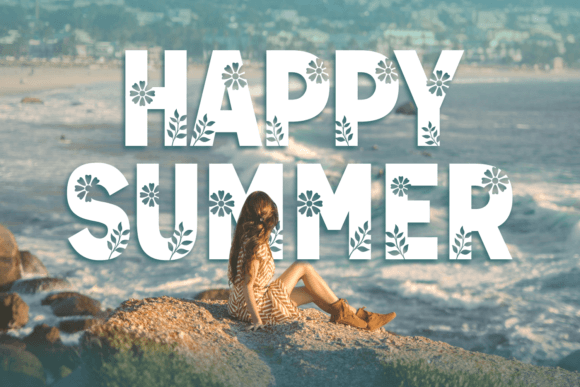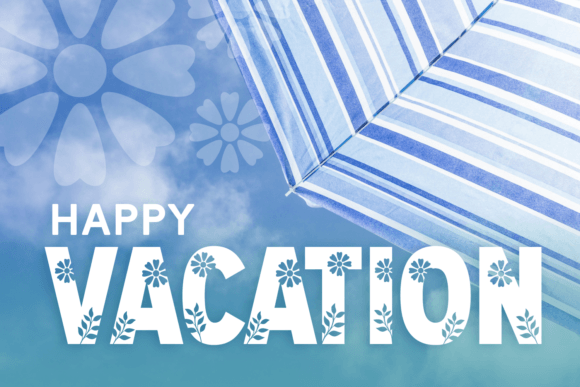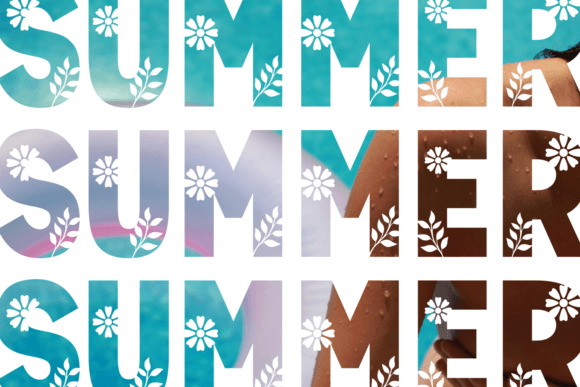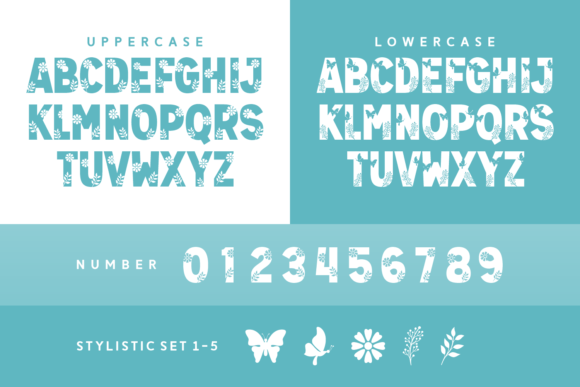
Introduction to Gooday Summer Font
As a designer, have you ever found yourself lost in a sea of creative possibilities, searching for that perfect font to bring your project to life? It’s a feeling we’ve all experienced at some point, and it’s exactly what makes the discovery of a stunning new font so thrilling. For me, that moment came when I stumbled upon the enchanting Gooday Summer Font.
This beautiful decorative font is more than just a pretty face – it’s a game-changer for designers looking to add a touch of elegance and whimsy to their work. With its intricate floral and butterfly motifs, Gooday Summer Font is perfect for creating captivating designs that exude a sense of beauty and romance. Whether you’re working on a wedding invitation, a garden party poster, or a feminine branding project, this high-quality font is sure to elevate your design to the next level.
Key Features of Gooday Summer Font
- High-quality design resource ideal for creative projects, featuring a unique and vibrant style.
- Features a bold and playful font size, ranging from 12 to 72 points, suitable for various design applications.
- Designed with a high resolution of 300 DPI, ensuring crisp and clear display on various screens and print materials.
- Perfect for summer-themed projects, parties, and events, adding a fun and lively touch to any design.
Honest Review: Gooday Summer Font
As a designer, I’m always on the lookout for high-quality design resources to elevate my creative projects. Recently, I stumbled upon the Gooday Summer Font, and I’m excited to share my honest review with you.
- ✨ Unique and playful feel that’s perfect for summer-themed projects or designs that require a touch of warmth.
- ✨ High-quality vector graphics that ensure crisp and clear text rendering, even at larger sizes.
- ✨ Transparent background option, making it easy to integrate with various design elements and backgrounds.
- ⚠️ Limited character set, which might be a concern for designers who require a wide range of special characters or languages.
- ⚠️ Not suitable for formal or professional designs, as its playful nature may not convey the desired level of sophistication.
Overall, I’m impressed with the Gooday Summer Font’s potential for creative projects, but it’s essential to consider its limitations before incorporating it into your design workflow.
The Gooday Summer Font is ideal for a variety of creative projects, including social media graphics, blog posts, and marketing materials. Its high-quality design and transparent background make it a versatile choice for designers of all levels.
Tips for Getting the Most Out of Gooday Summer Font
To get the most out of the Gooday Summer Font, experiment with different font sizes, colors, and combinations to create unique and eye-catching designs. Additionally, consider using the font in conjunction with other design elements to add depth and visual interest to your projects.